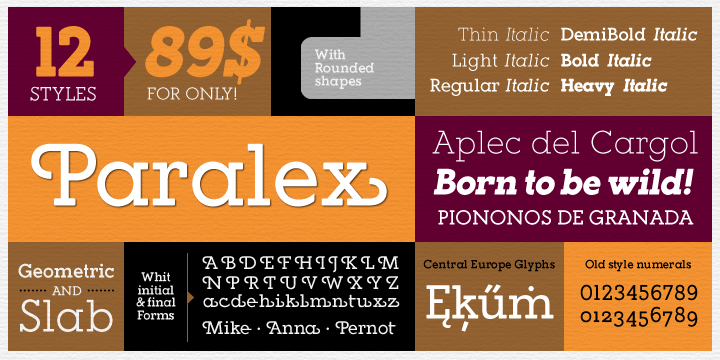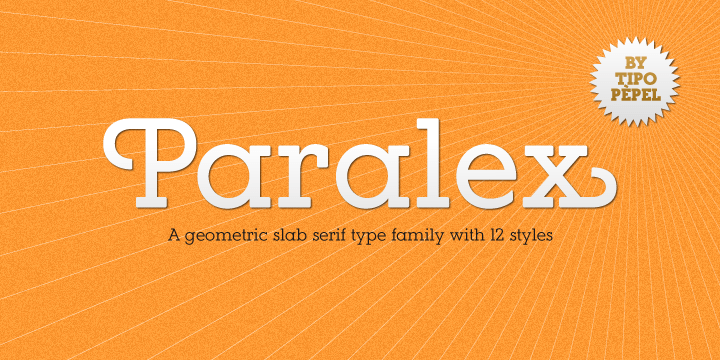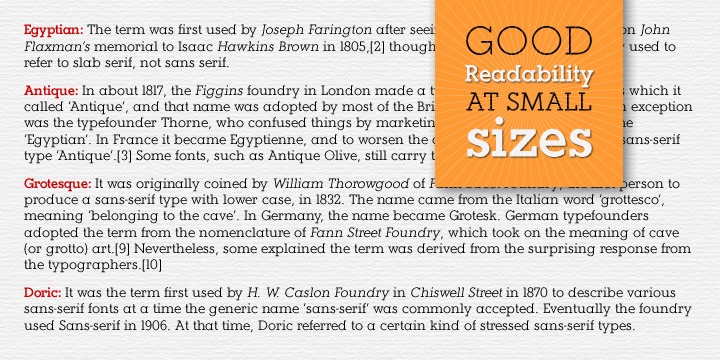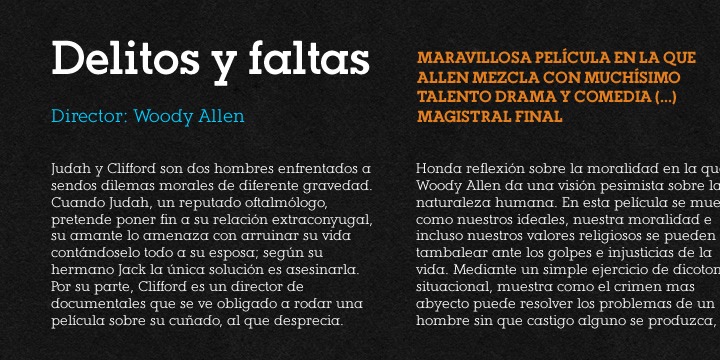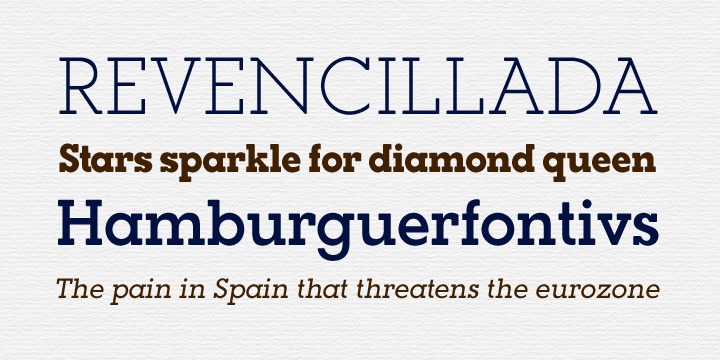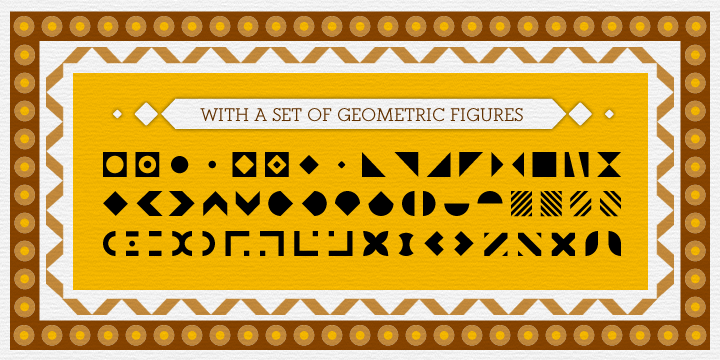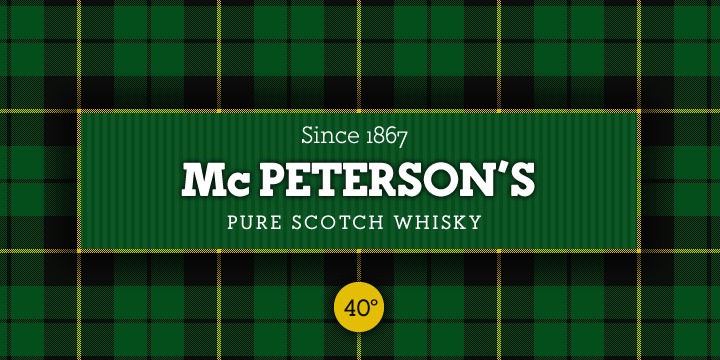
Paralex
Font Family by Tipo Pèpel
Paralex is a complete typeface family of 12 fonts with geometric-slab style. The edges of shapes are rounded to give a smoother appearance. It contains several OpenType functionality, such as initial and final decorative forms, old style numerals and an extensive set of geometric style ornaments. The character set supports Central and Eastern European as well as Western European languages. Despite the robustness of its forms has a warm appearance, and good readability that make it useful for a variety of situations.